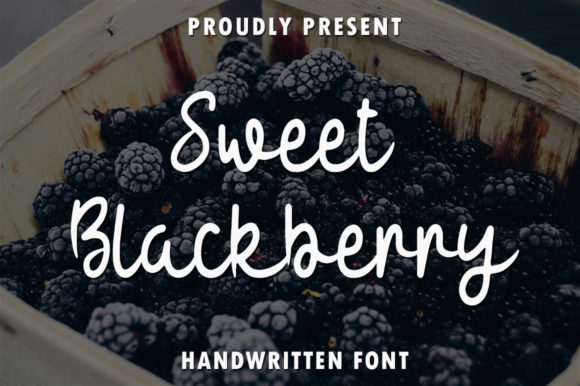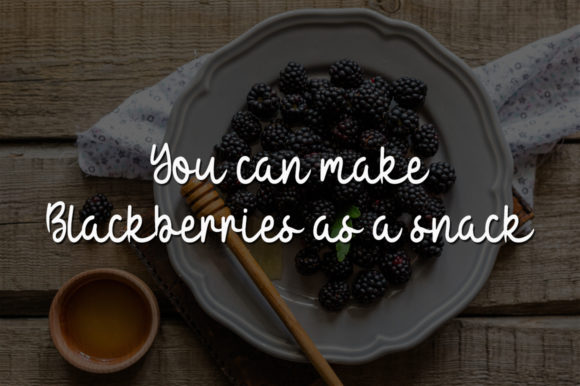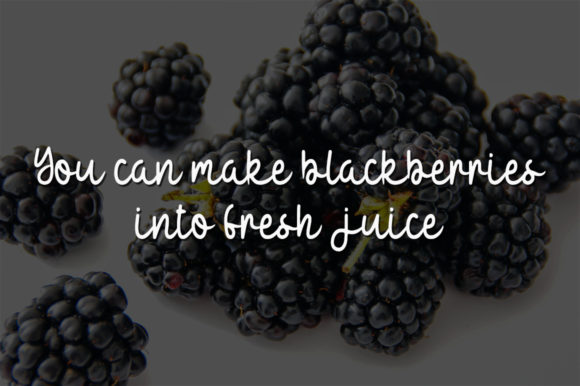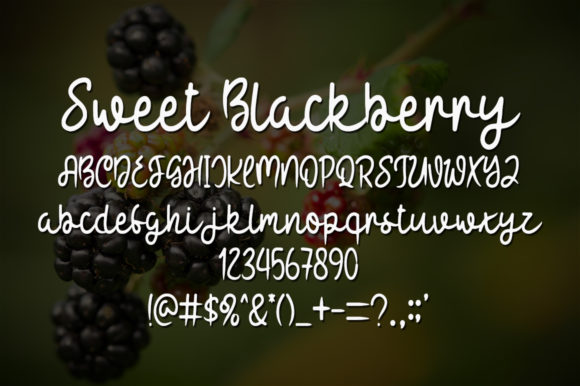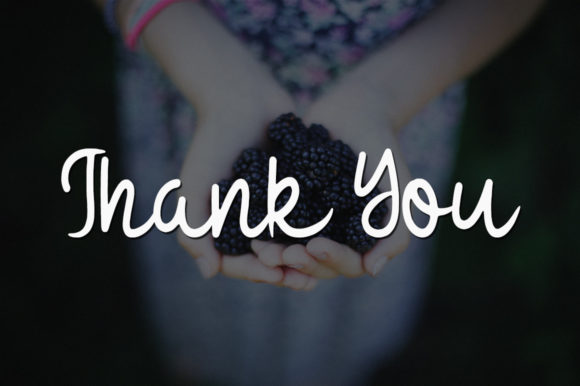
Sweet Blackberry Font
About Sweet Blackberry Font
Sweet Blackberry is a sweet and cursive handwritten font. This gentle font will look gorgeous on a variety of design ideas. It will add a joyful and romantic touch to each of your projects!